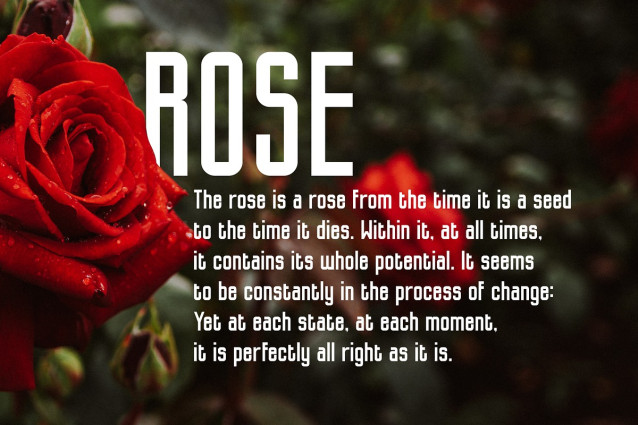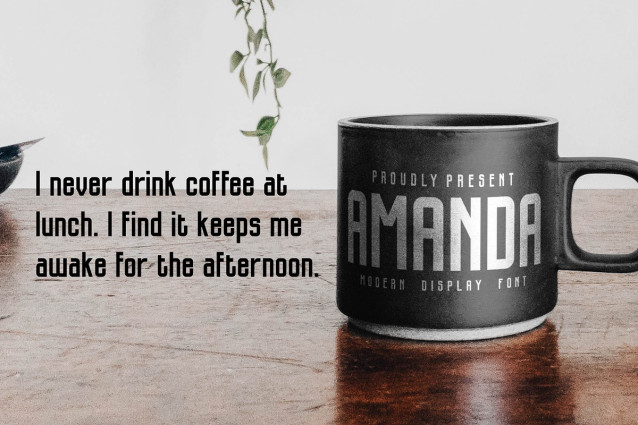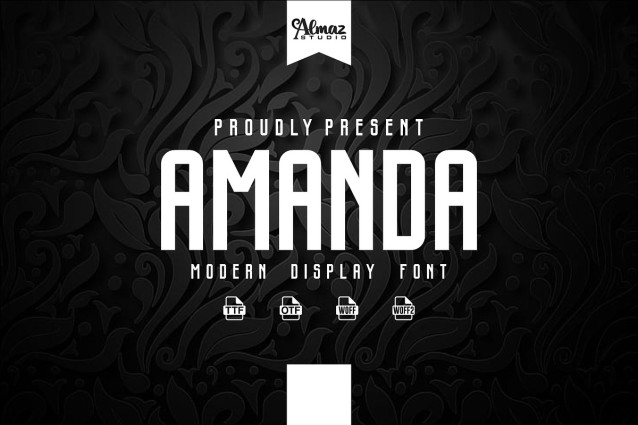
Amanda Font
Amanda Font is a minimalist Display fonts, Amanda clean lines and sharp edges make it a perfect sans for weddings, logos, quotes, print, signage, and more! Plus, the different weights make it a stellar option for branding and web use looks really beautiful with condensed spacing as well.